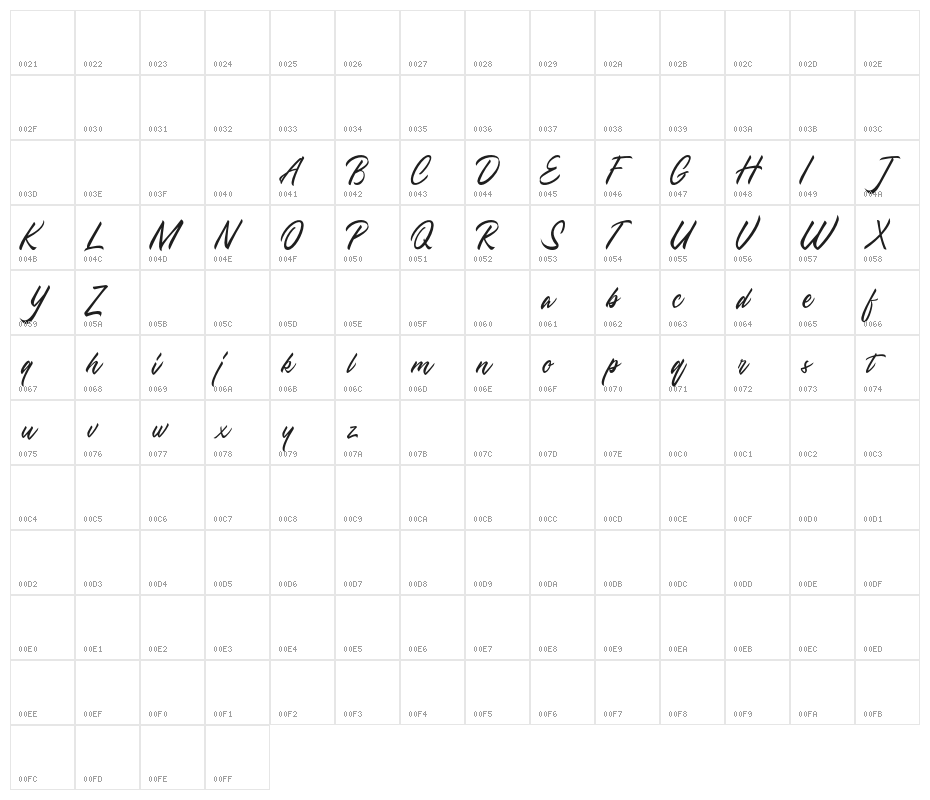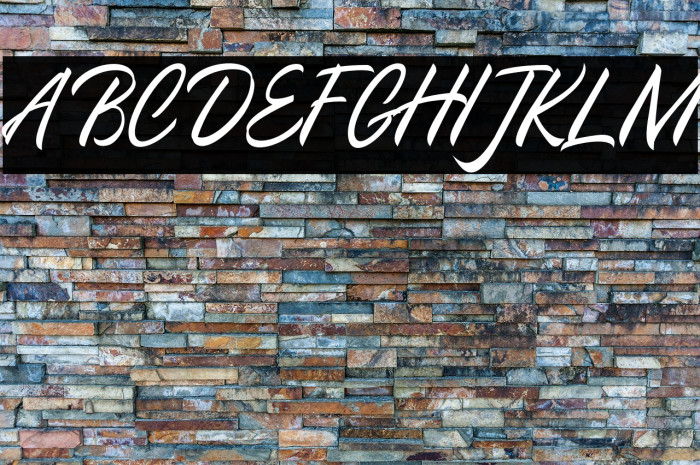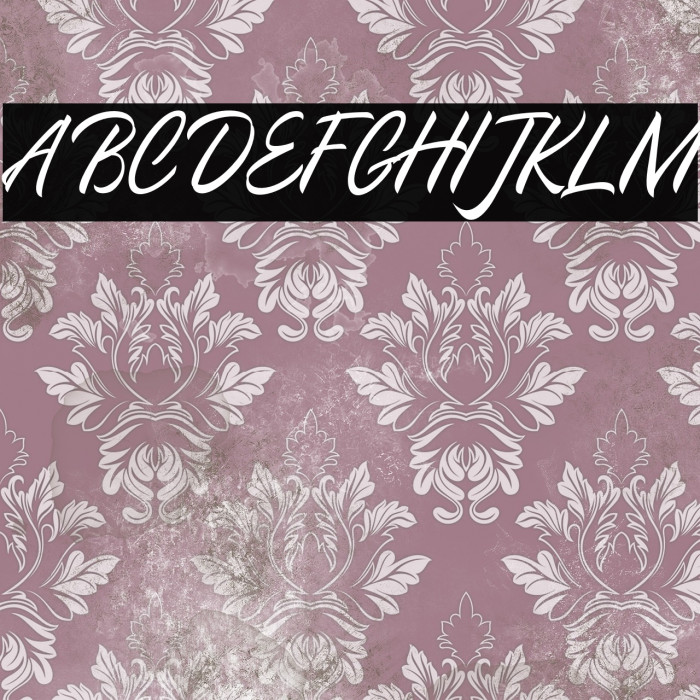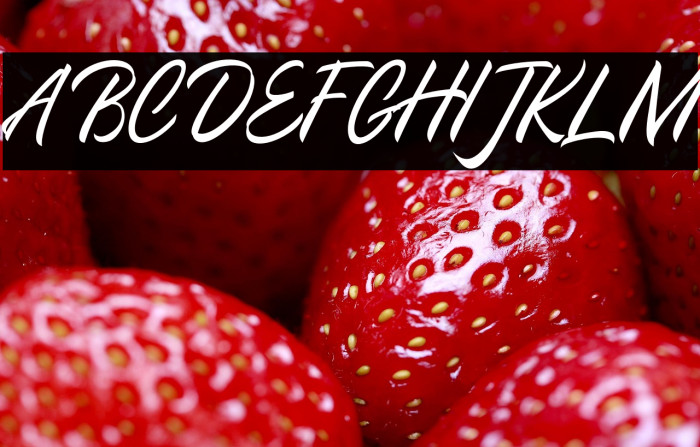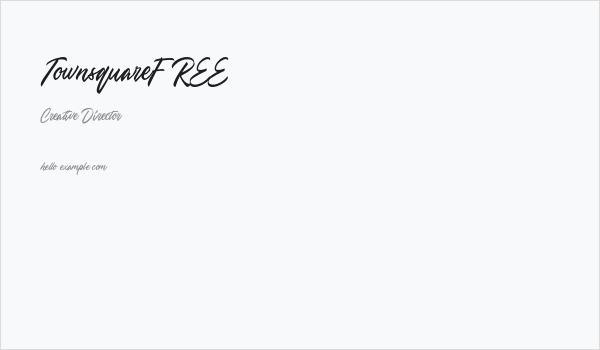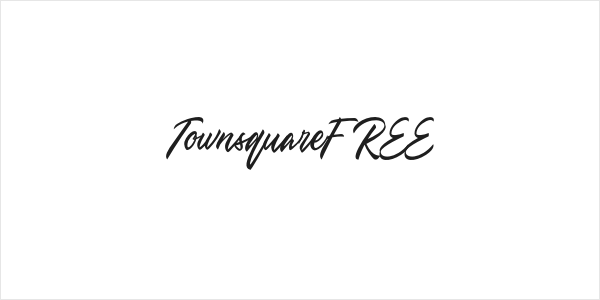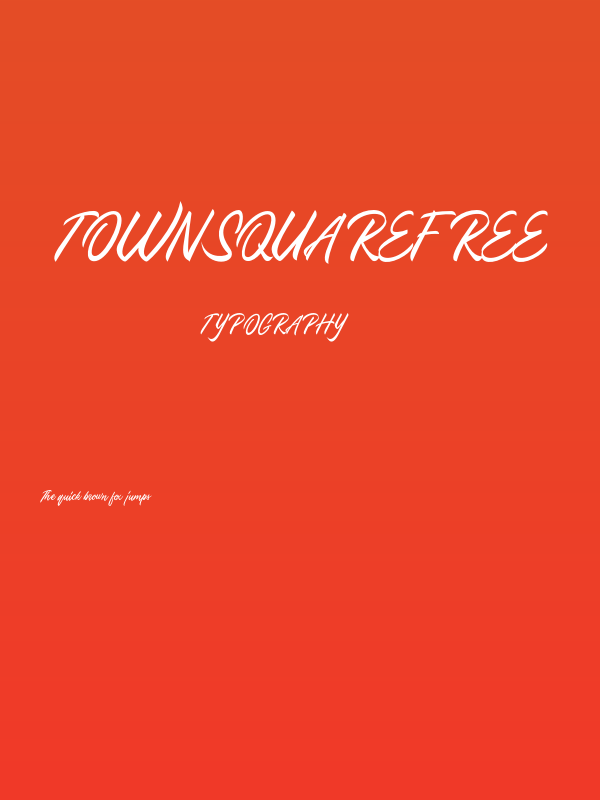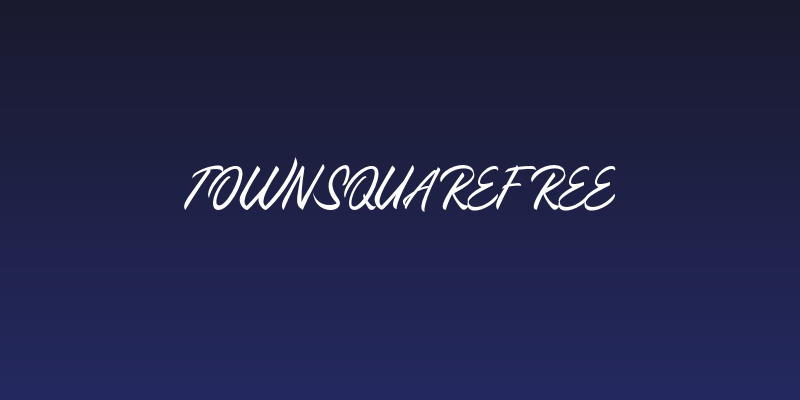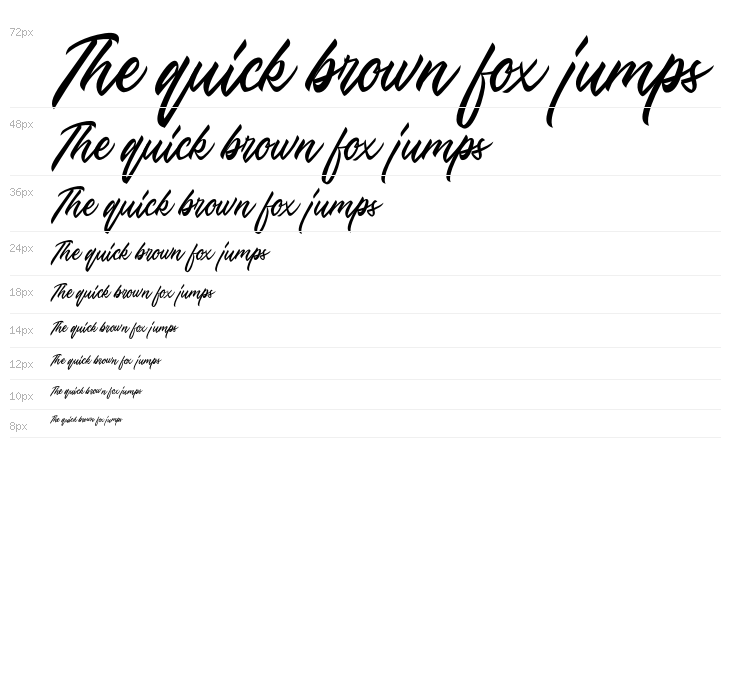
TownsquareFREE Font
TownsquareFREE Description
This font exudes a dynamic and energetic feel with its fluid, cursive style. The characters are elegantly connected, creating a sense of motion and flow. The strokes are bold and confident, with a slight slant that adds to its lively appearance. The uppercase letters are tall and commanding, while the lowercase letters maintain a consistent rhythm. This font is perfect for projects that require a personal touch or a sense of sophistication. The overall design is both modern and timeless, making it versatile for various applications.
| Proposed Projects | Ideal for wedding invitations, greeting cards, branding, and elegant logos. |